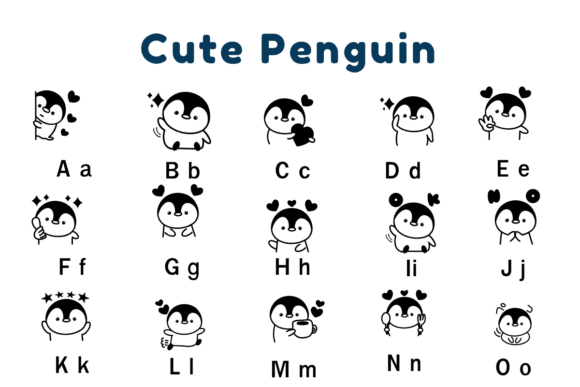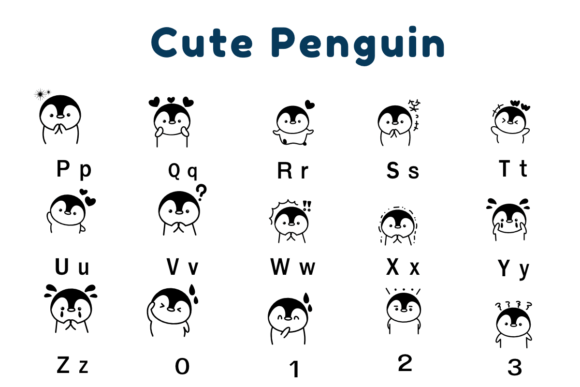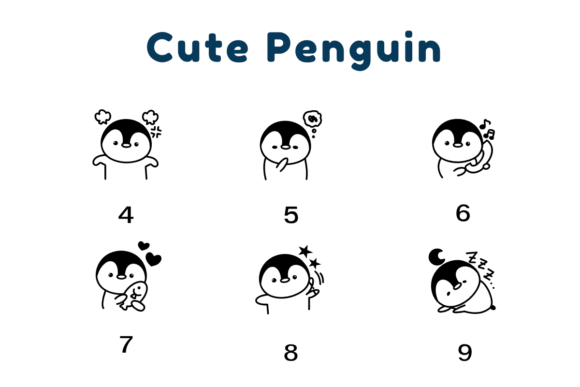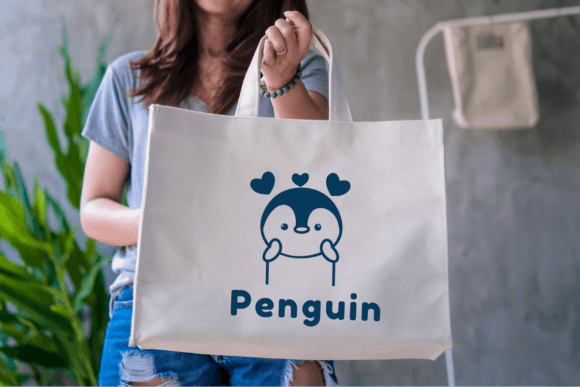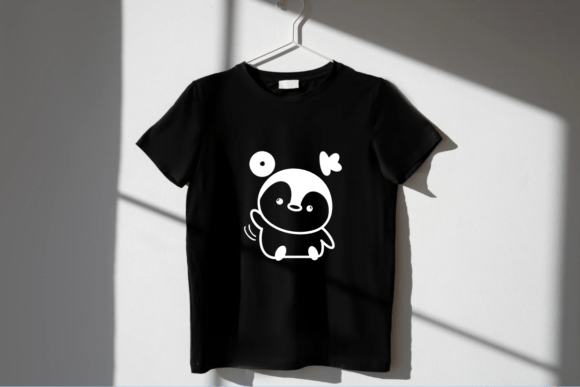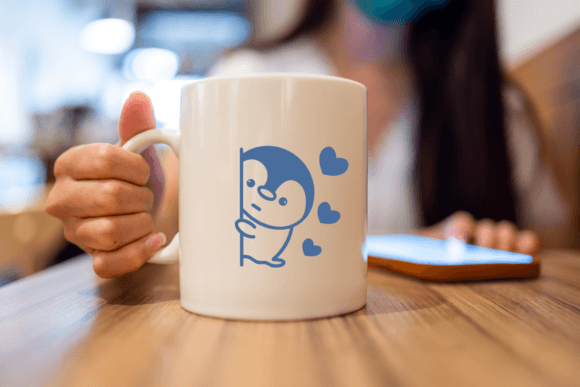
Cute Penguin Font: Add a Playful Touch to Your Creative Projects
Are you looking for a font that can add a playful and adorable touch to your creative projects? Look no further than the Cute Penguin Font! This dingbats font features a cute theme style that is perfect for a variety of projects, from wedding invitations to DIY crafts and decorations.
What is Cute Penguin Font?
Cute Penguin Font is a unique dingbats font that features cute penguin illustrations. The font is designed to be versatile and can be used for a wide range of creative projects. The font includes a variety of cute penguin illustrations, including penguins, penguin feet, and other penguin-themed icons.
Features of Cute Penguin Font
- Cute and Playful Design: The Cute Penguin Font features a cute and playful design that is sure to add a touch of whimsy to your projects.
- Dingbats Font: The font is a dingbats font, which means it features illustrations instead of traditional letters and numbers.
- Versatile: The font is versatile and can be used for a wide range of creative projects, from wedding invitations to DIY crafts and decorations.
- Easily Customizable: The font is easily customizable, allowing you to adjust the size, color, and style to fit your project’s needs.
Uses for Cute Penguin Font
Cute Penguin Font is perfect for a variety of creative projects, including:
- Wedding Invitations: Add a playful touch to your wedding invitations with the Cute Penguin Font.
- DIY Crafts: Use the font to create cute and personalized DIY crafts, such as cards, gift tags, and decorations.
- Decorations: Use the font to create cute and personalized decorations, such as banners, garlands, and signs.
- Logos: Use the font to create a cute and playful logo for your business or brand.
- Social Media Graphics: Use the font to create cute and engaging social media graphics, such as Instagram posts and Facebook graphics.
Tips for Using Cute Penguin Font
Here are a few tips for using Cute Penguin Font:
- Use it Sparingly: Use the font sparingly to avoid overwhelming your project. One or two cute penguin illustrations can go a long way.
- Mix and Match: Mix and match the cute penguin illustrations with other fonts and graphics to create a unique and personalized look.
- Experiment with Colors: Experiment with different colors to find the perfect combination for your project.
- Have Fun: Most importantly, have fun! The Cute Penguin Font is designed to be playful and fun, so don’t be afraid to get creative.
Cute Penguin Font is a unique and versatile dingbats font that is perfect for adding a playful touch to your creative projects. With its cute and playful design, the font is sure to delight designers and crafters alike. Whether you’re creating wedding invitations, DIY crafts, or decorations, the Cute Penguin Font is a great choice. So why not give it a try and see what creative projects you can come up with?